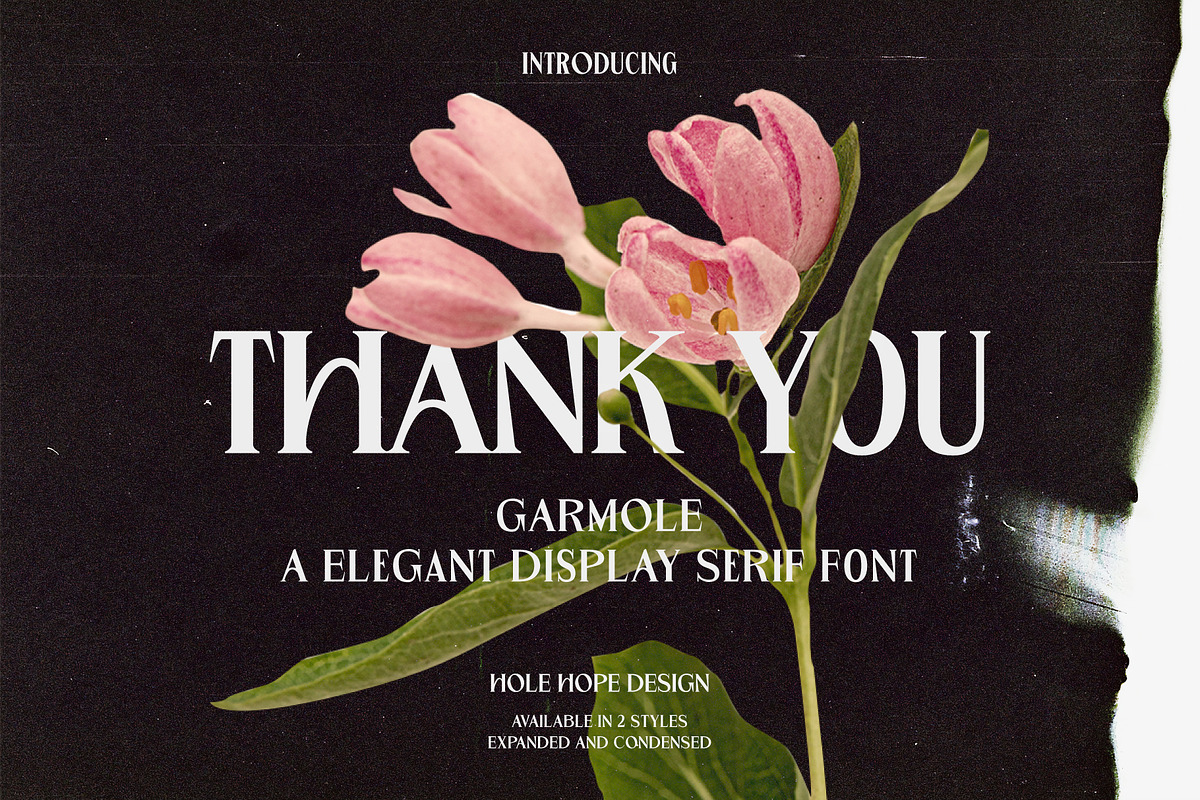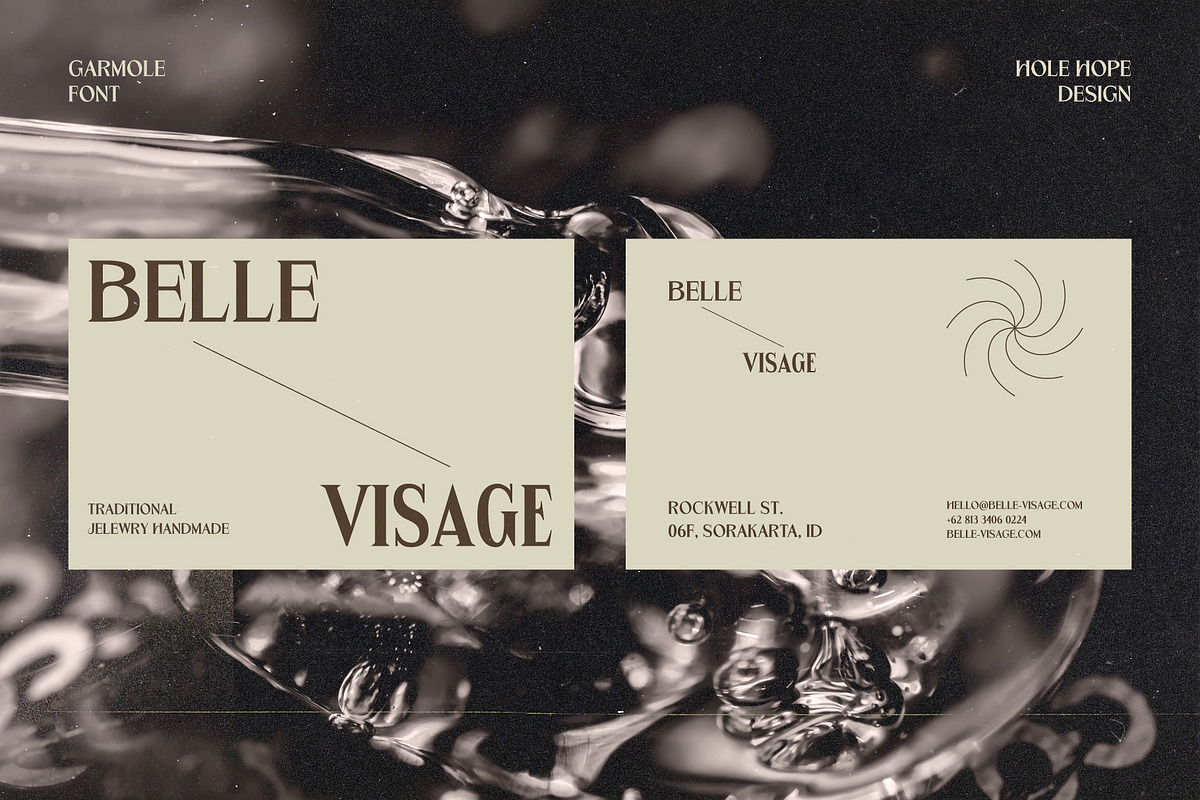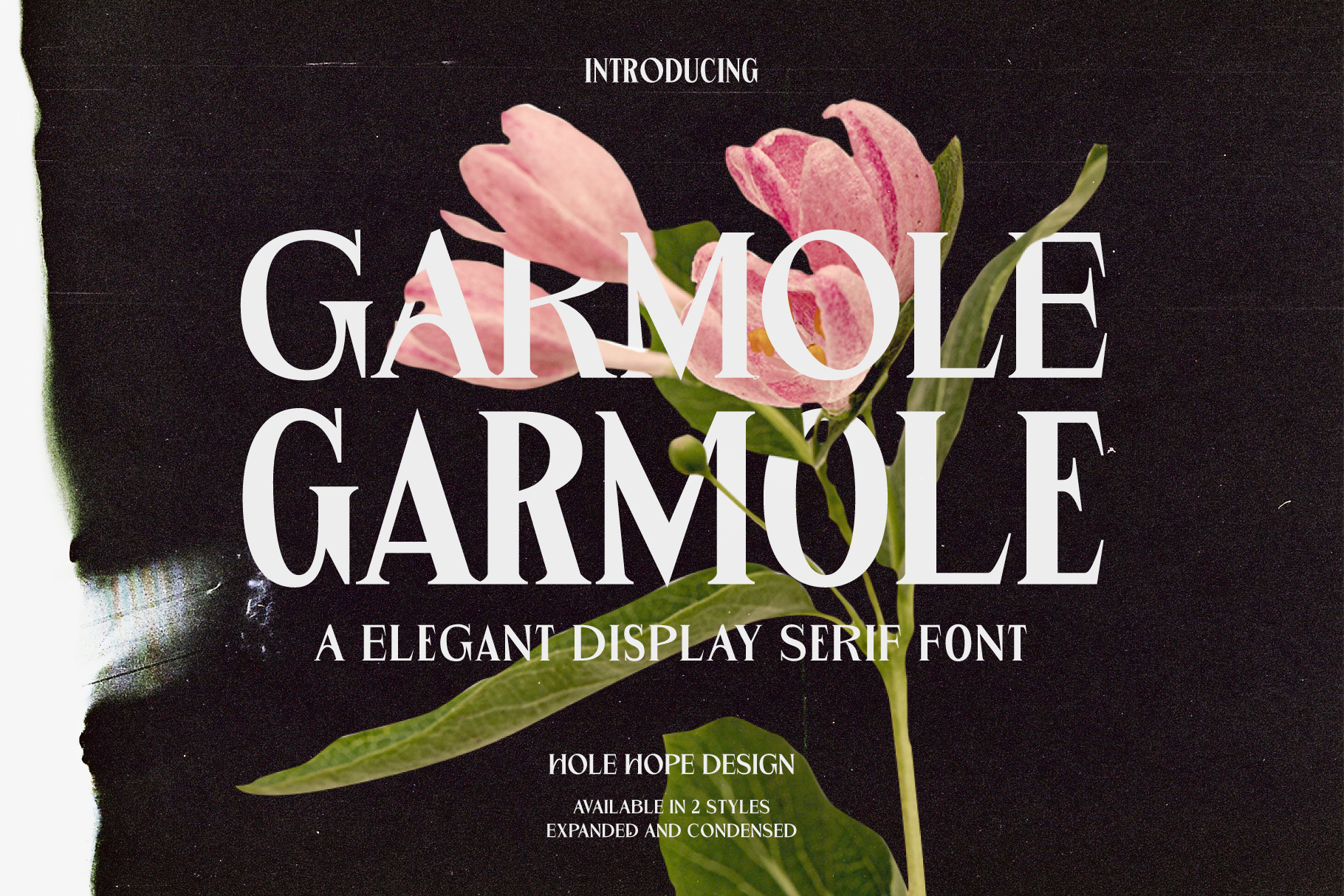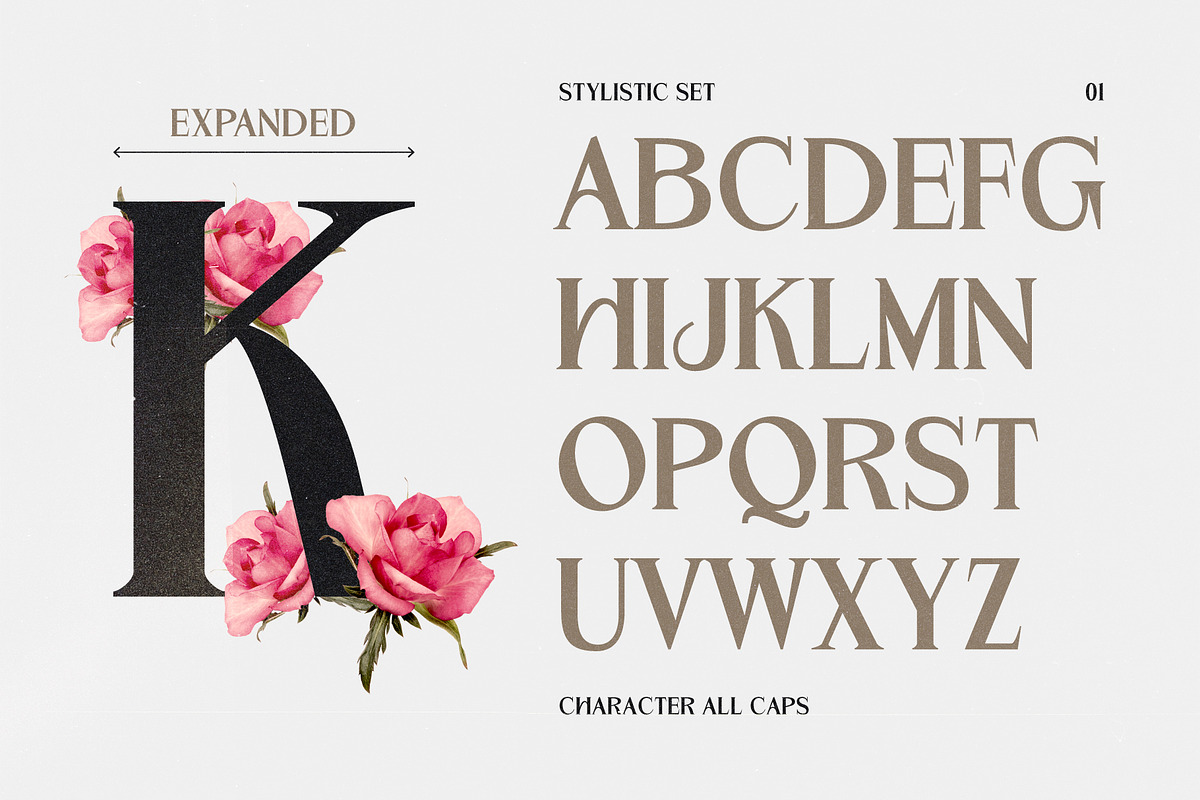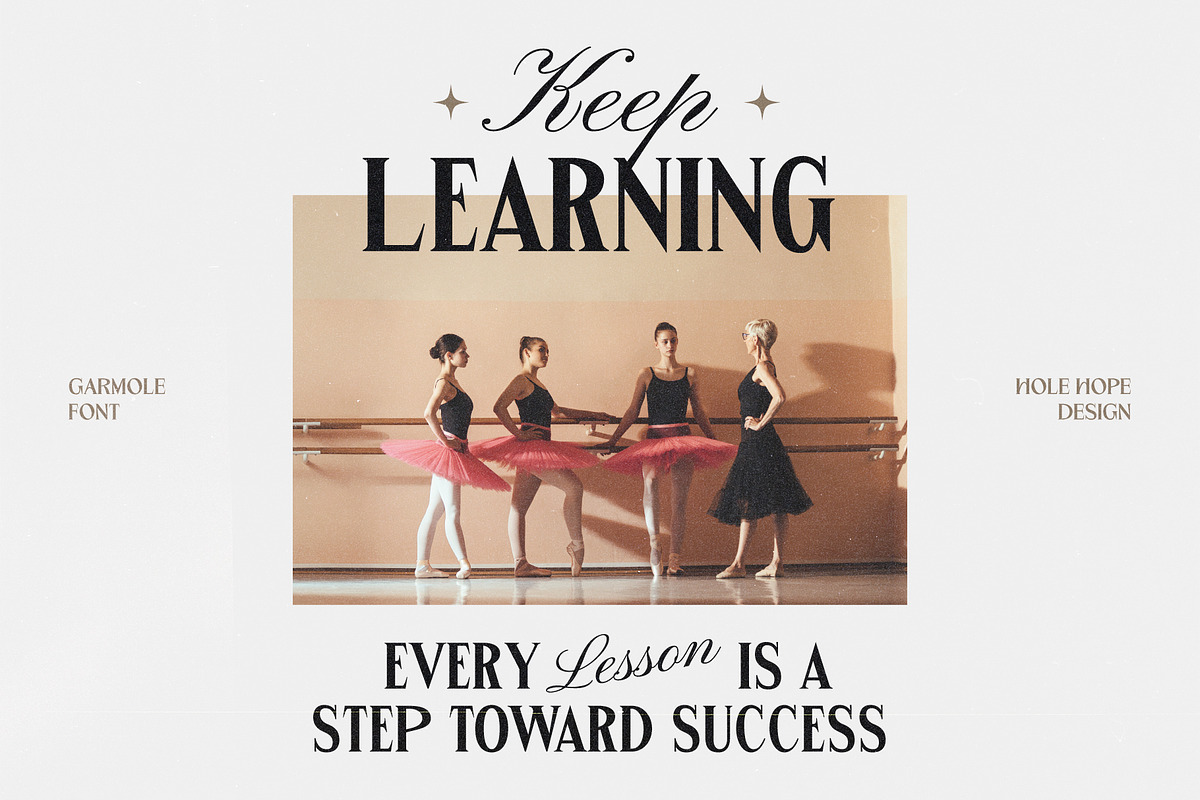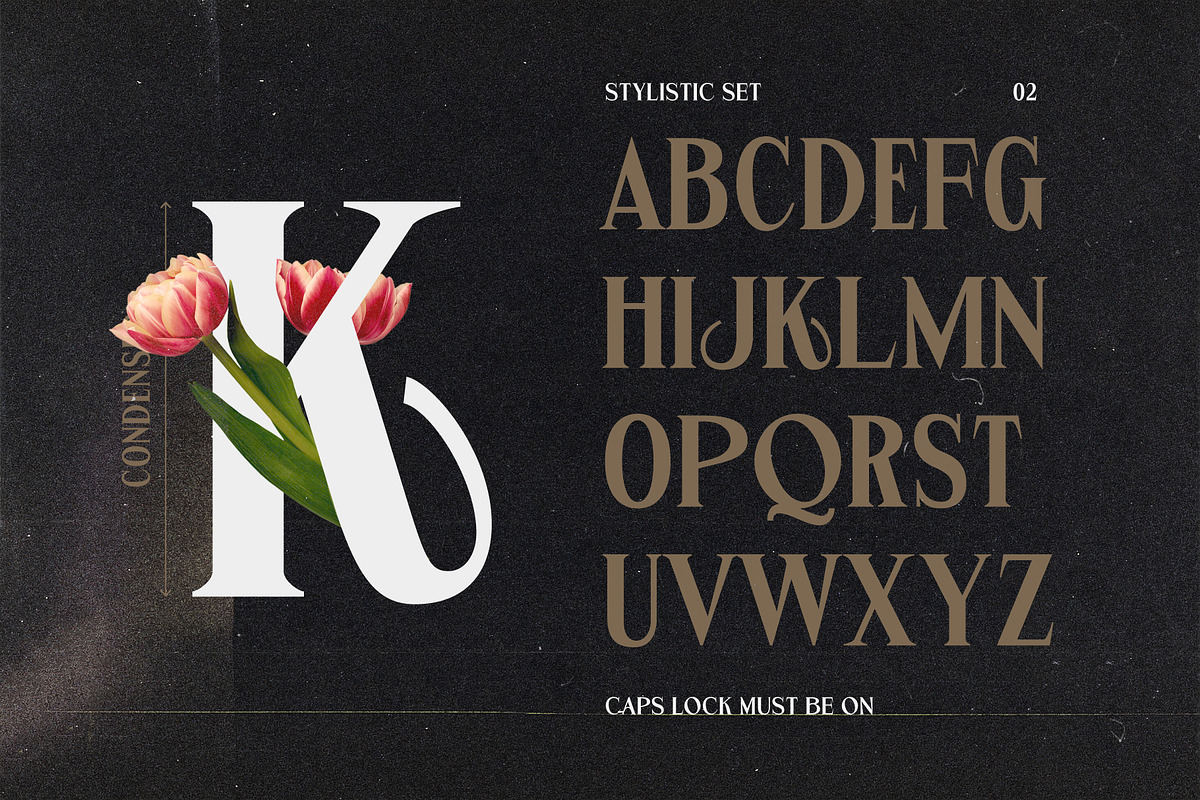
Garmole - Elegant Serif Font
Introducing Garmole, a captivating and sophisticated serif font that effortlessly combines timeless elegance with modern appeal. With its refined details and graceful letterforms, Garmole is the perfect choice for projects that demand a touch of Folk & Ethnic.
Garmole features: All Caps Stylistic Set Punctuation & Numbers Multilingual
Elevate and explore the design possibilities with this Serif Elegant Font!